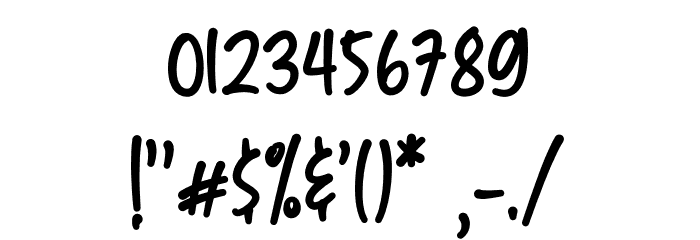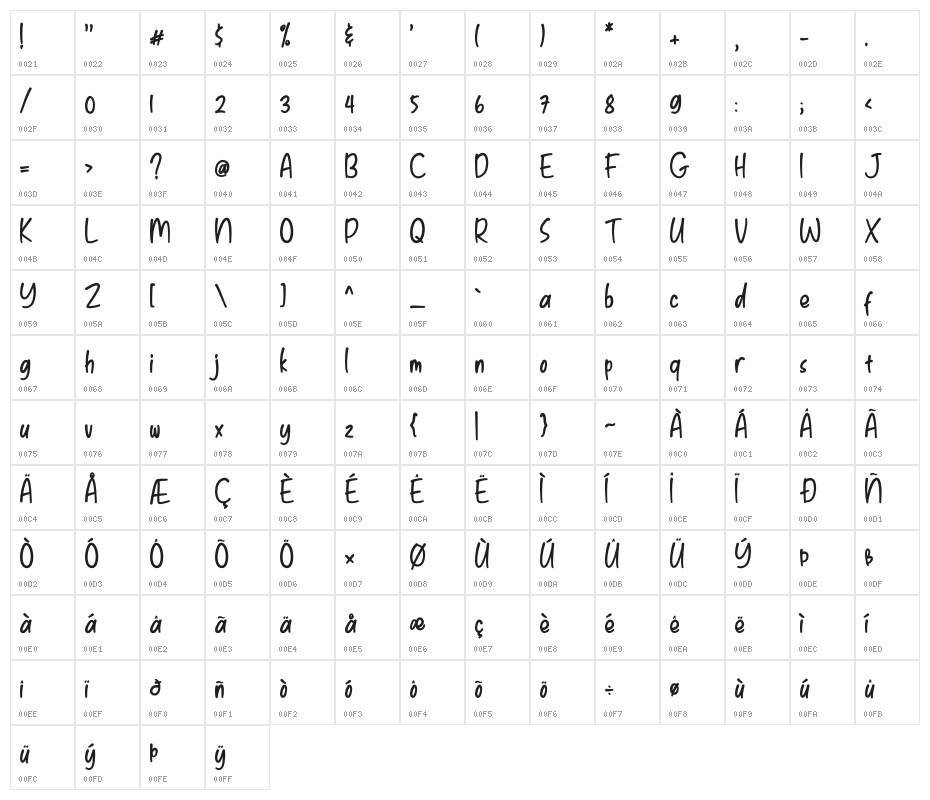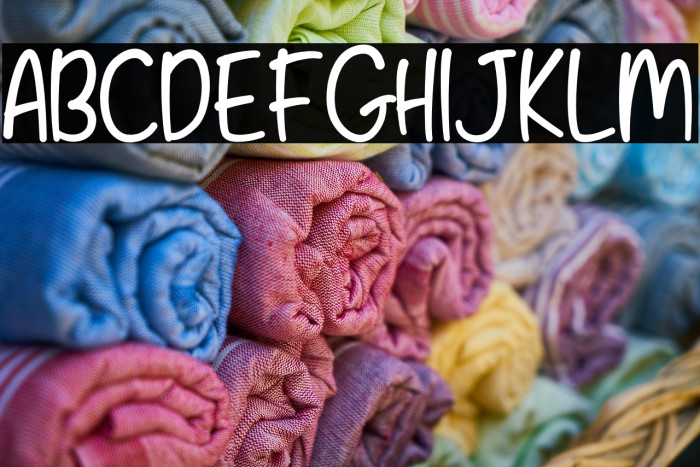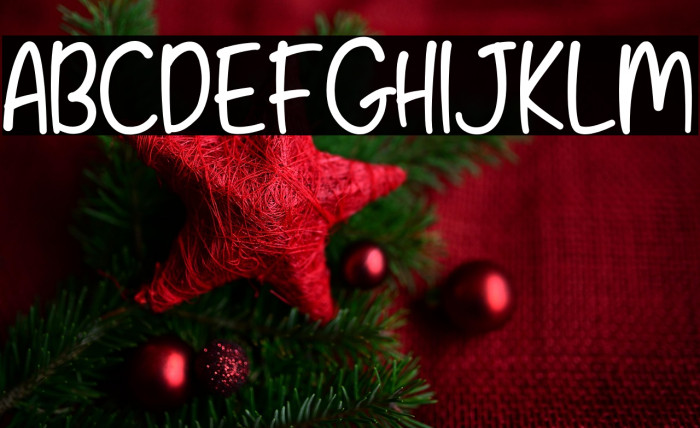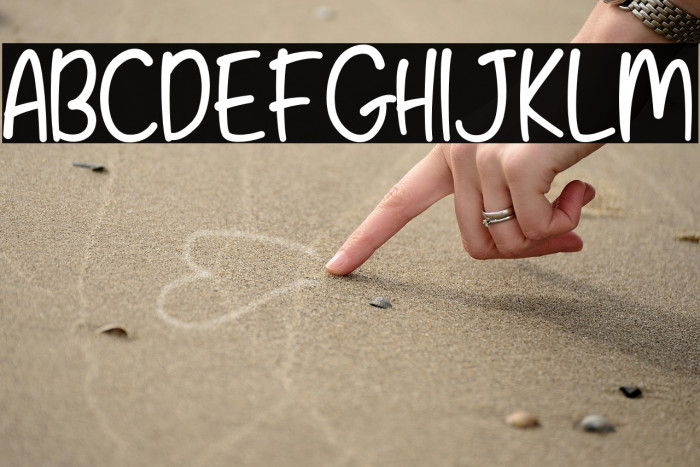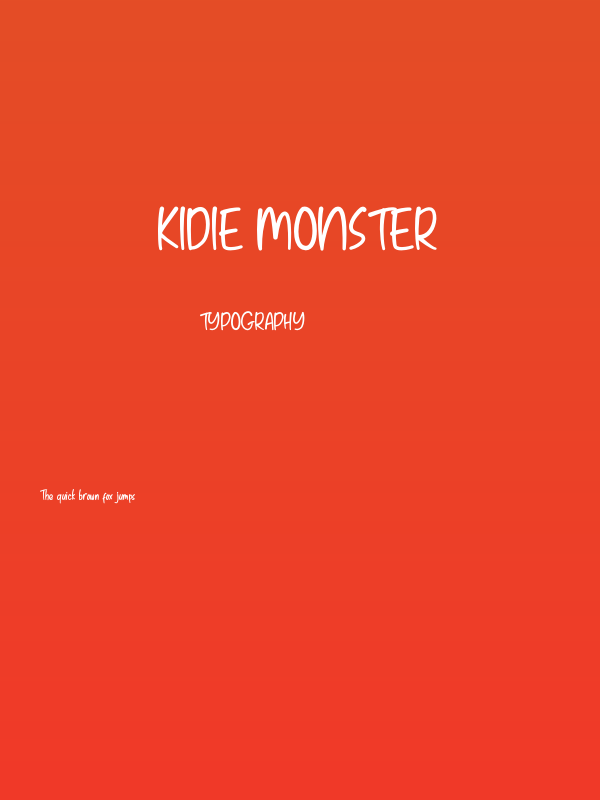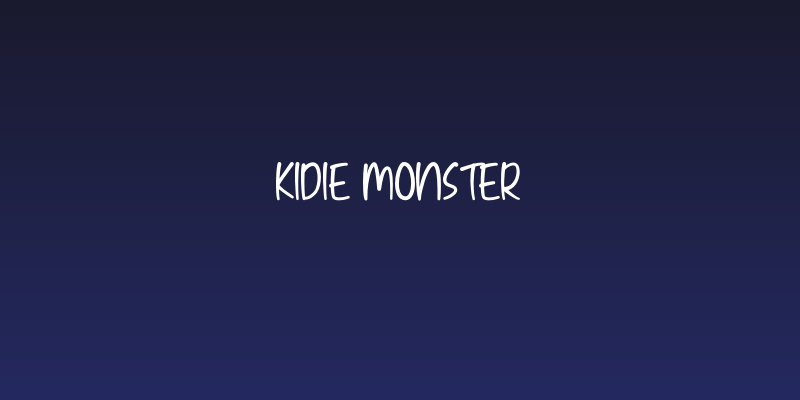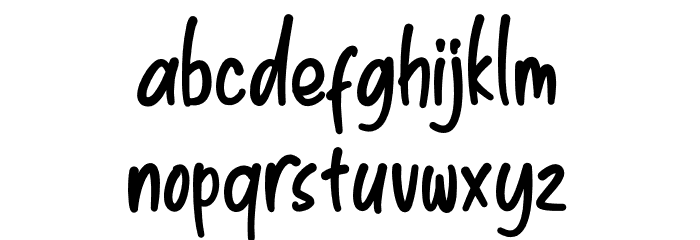
Kidie Monster Font
Kidie Monster Description
This playful and whimsical font features a handwritten style that exudes a sense of fun and creativity. The characters are rounded and slightly irregular, giving them a friendly and approachable appearance. The uppercase letters are bold and prominent, while the lowercase letters maintain a consistent flow, enhancing readability. Numbers and special characters are designed to match the playful aesthetic, making them suitable for a variety of informal contexts. The overall design is perfect for projects that require a touch of personality and charm.